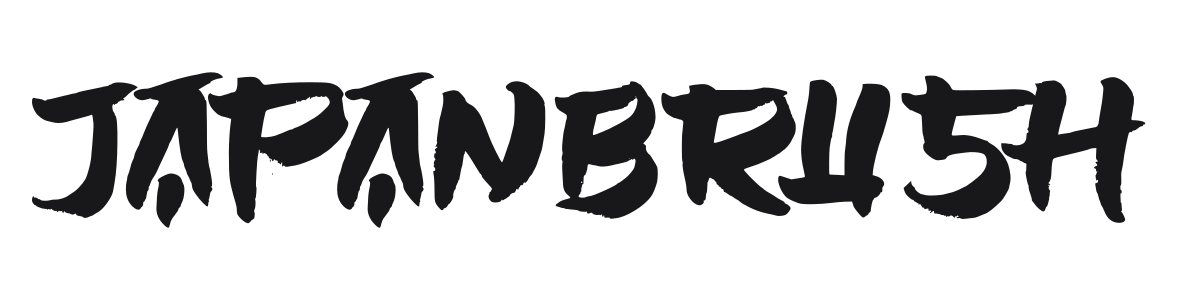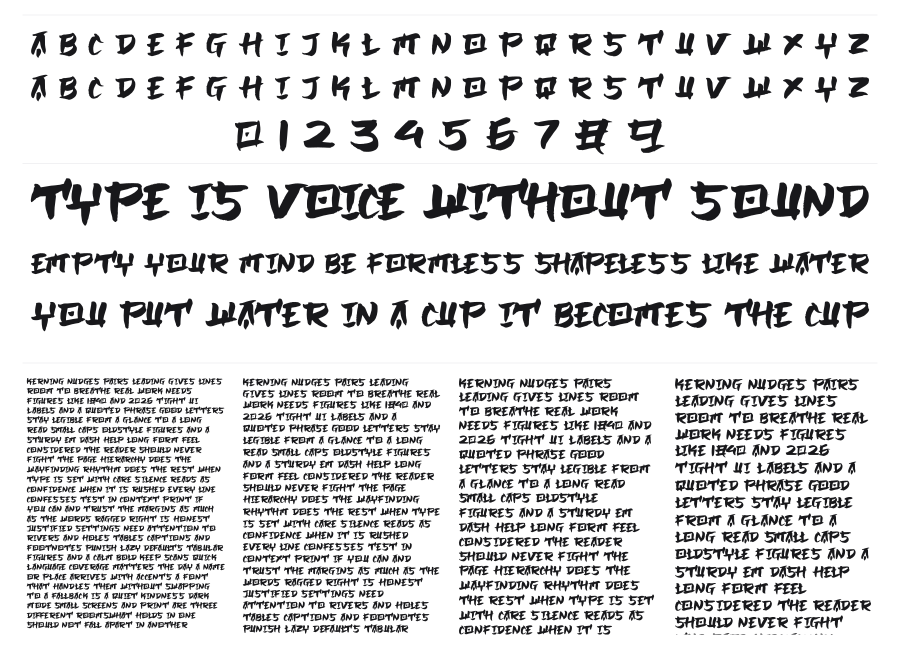
Japanbrush
by Intype
Japanbrush is a bold Latin brush script inspired by Japanese calligraphy, rendered with thick ink strokes and rough, textured edges. Each character carries the spontaneity of a hand-inked brushstroke, evoking the energy of East Asian writing traditions without using actual kanji. The result is aggressive and expressive, suited to headlines that need raw character.